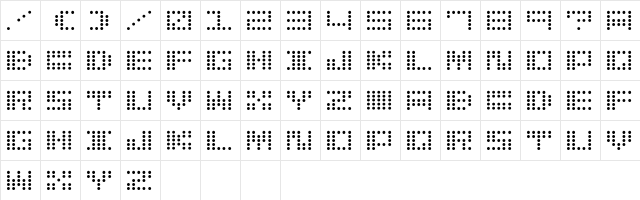
Butsubutsu Regular
Design Context for Butsubutsu Typeface
Butsubutsu is a composed and adaptable typeface that performs quietly and consistently across a wide range of design contexts.